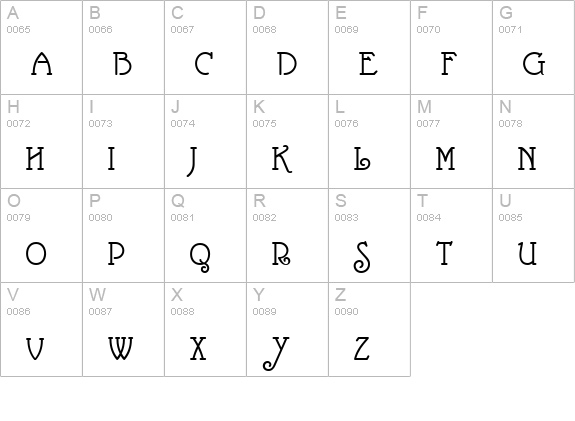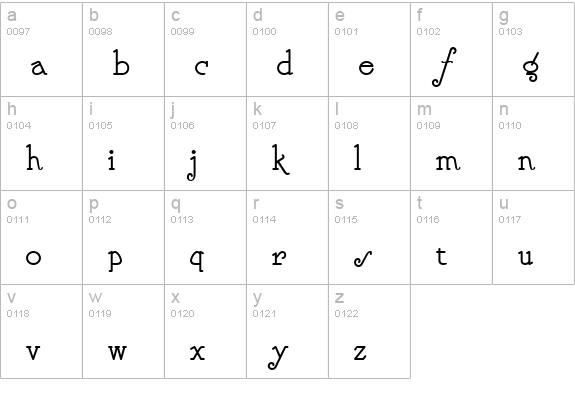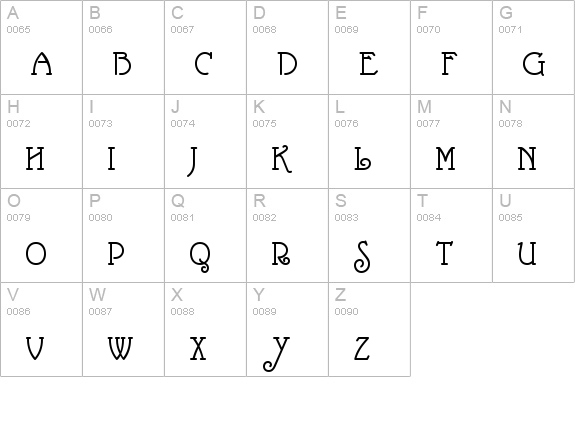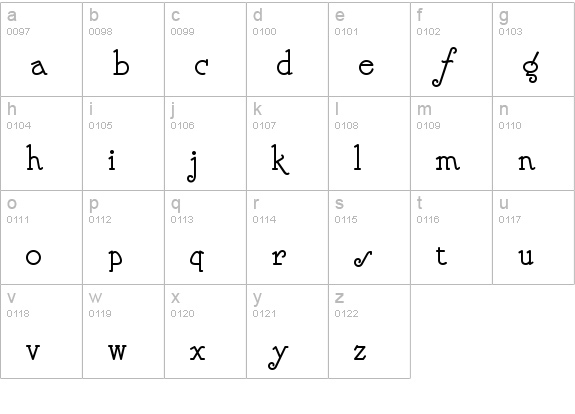
Nickelodeon NF Font Details
Introducing Nickelodeon NF, a vibrant and dynamic font that captures the playful essence of the beloved Nickelodeon brand. This font is the perfect choice for adding a touch of whimsy and nostalgia to your designs. With its bold and cheerful letterforms, Nickelodeon NF will instantly transport you back to your childhood, evoking memories of Saturday morning cartoons and after-school adventures. What sets Nickelodeon NF apart is not just its eye-catching design, but also its accessibility. It is freely available to download at FontsMarket.com, ensuring that anyone can bring a dash of Nickelodeon magic to their projects. Whether you're creating a logo, designing a poster, or crafting a social media post, this font is a versatile tool that will make your text pop with personality. The lively and energetic nature of Nickelodeon NF makes it suitable for a wide range of applications. Its rounded and slightly exaggerated letterforms exude a sense of fun and playfulness, making it perfect for children's books, party invitations, or any design that aims to capture the imagination of both young and old. Nickelodeon NF also features a comprehensive character set, allowing you to use it in multiple languages and ensuring that your message can be conveyed effectively to a diverse audience. Its clean and legible design ensures that your text remains readable even at smaller sizes, making it a versatile choice for both print and digital mediums. So why wait? Let the spirit of Nickelodeon infuse your designs with joy and nostalgia. Download Nickelodeon NF for free at FontsMarket.com and unleash your creativity with this delightful and expressive font. Whether you're a professional designer or a passionate hobbyist, Nickelodeon NF is here to bring a touch of animated magic to your projects.